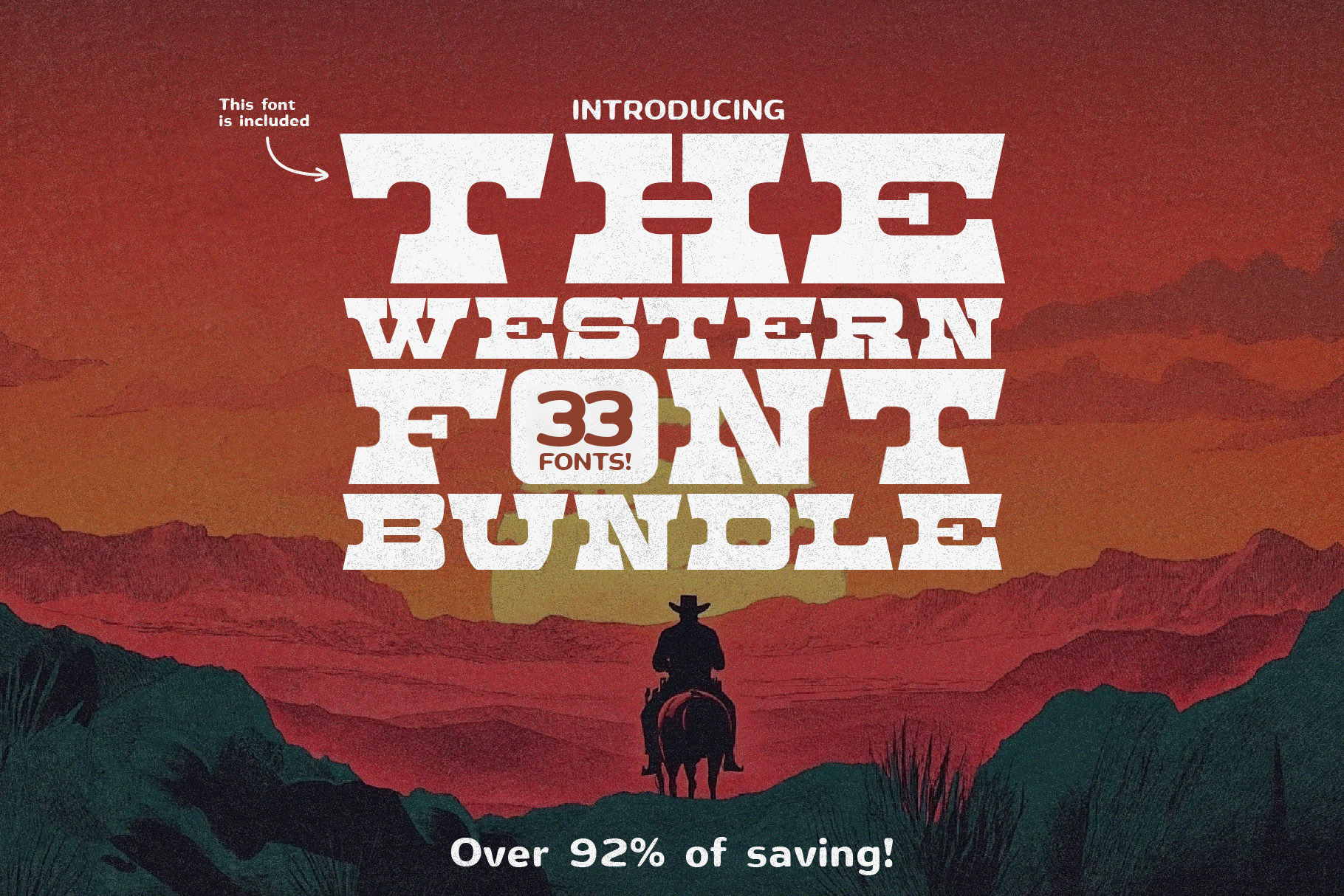
The Western Font Bundle (33 Fonts!)
Introducing the Western Font Bundle: Saddle Up for Epic Savings!
Yeehaw! The Western Font Bundle is here to lasso your creativity with over 33 wild west-inspired typefaces that evoke the rugged charm of saloons, dusty trails, cowboy legends, and frontier towns. Perfect for branding, posters, apparel, invitations, or any project that needs a bold, authentic western vibe!
- A curated collection of 33+ premium fonts, each brimming with western spirit.
- Versatile styles including bold slab serifs, decorative scripts, and vintage-inspired typefaces.